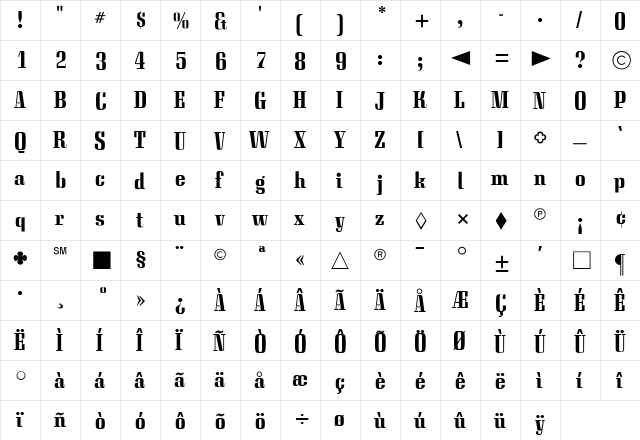
CgQuirinusBd Medium
Design Context for CgQuirinusBd Typeface
CgQuirinusBd offers clean, dependable letterforms without strong stylistic allegiance, making it a practical choice for designers who need flexibility.